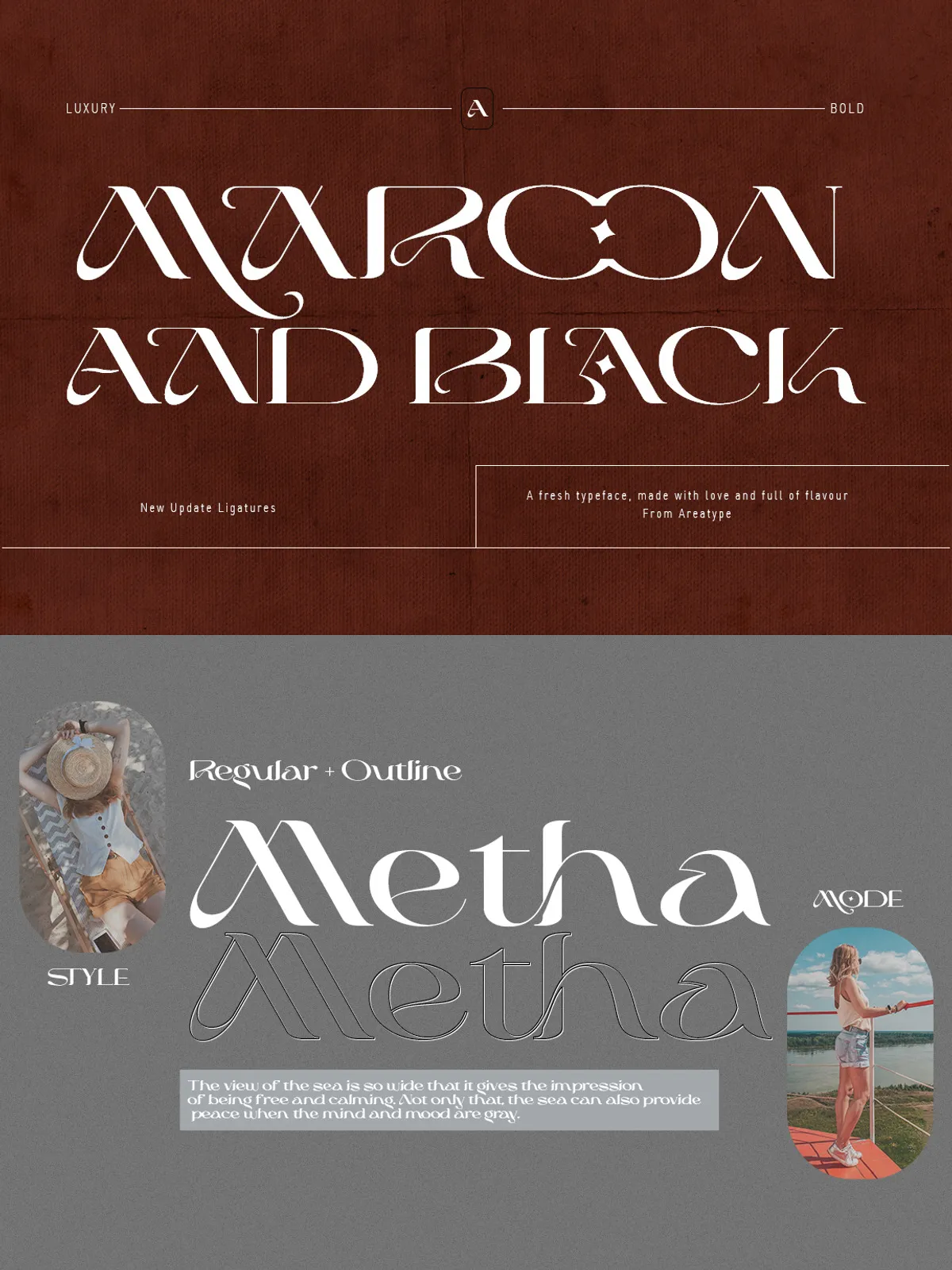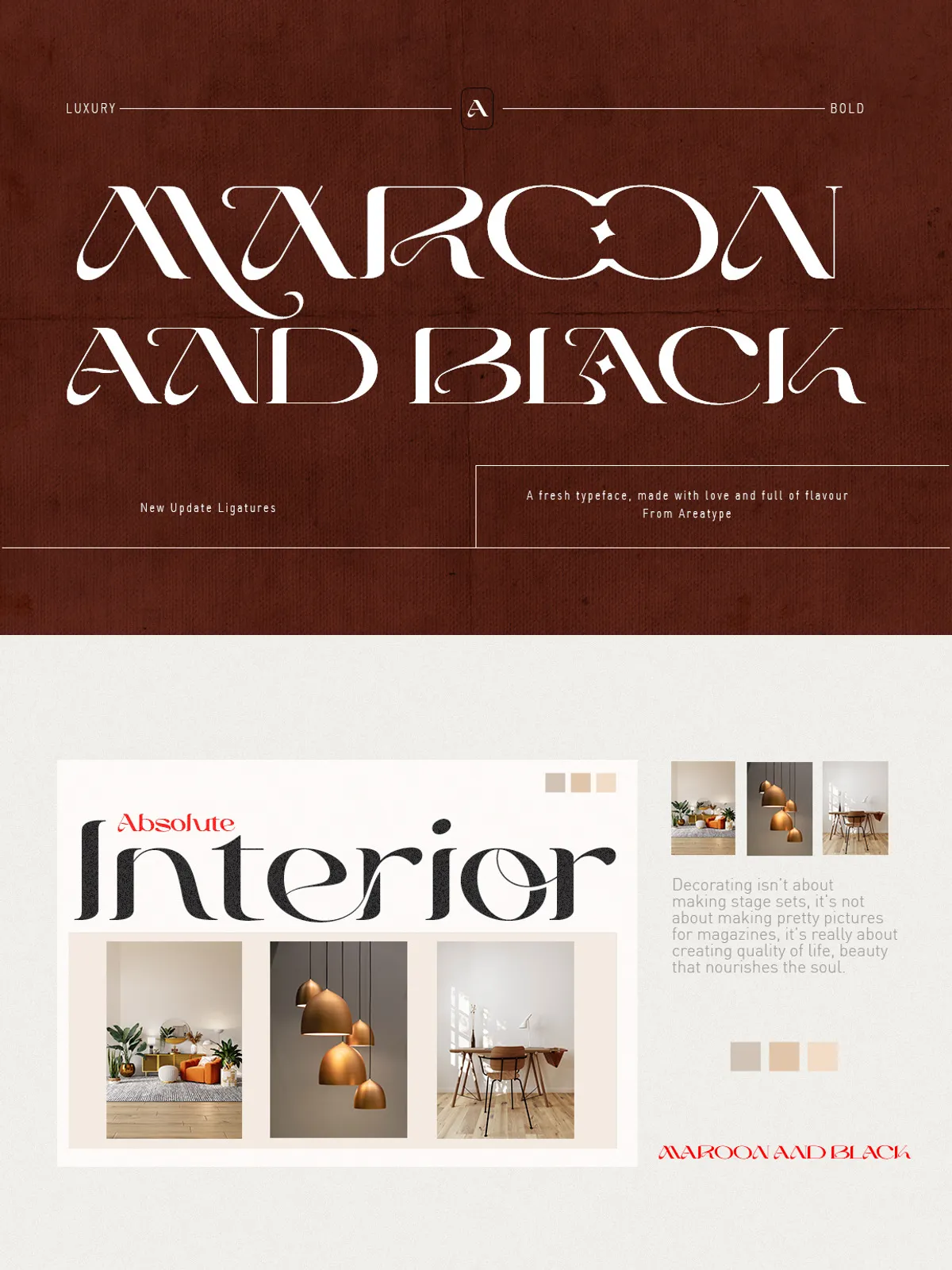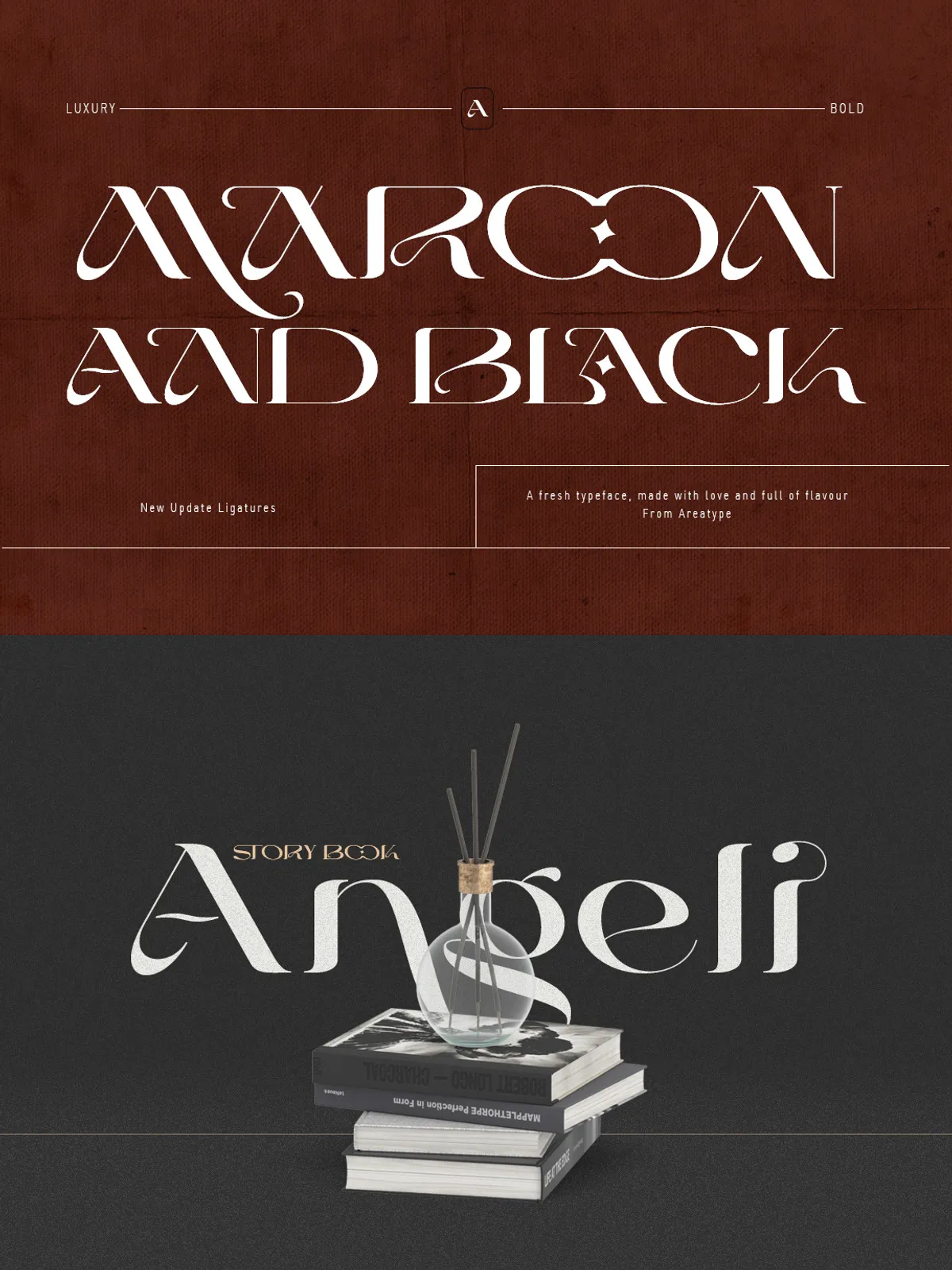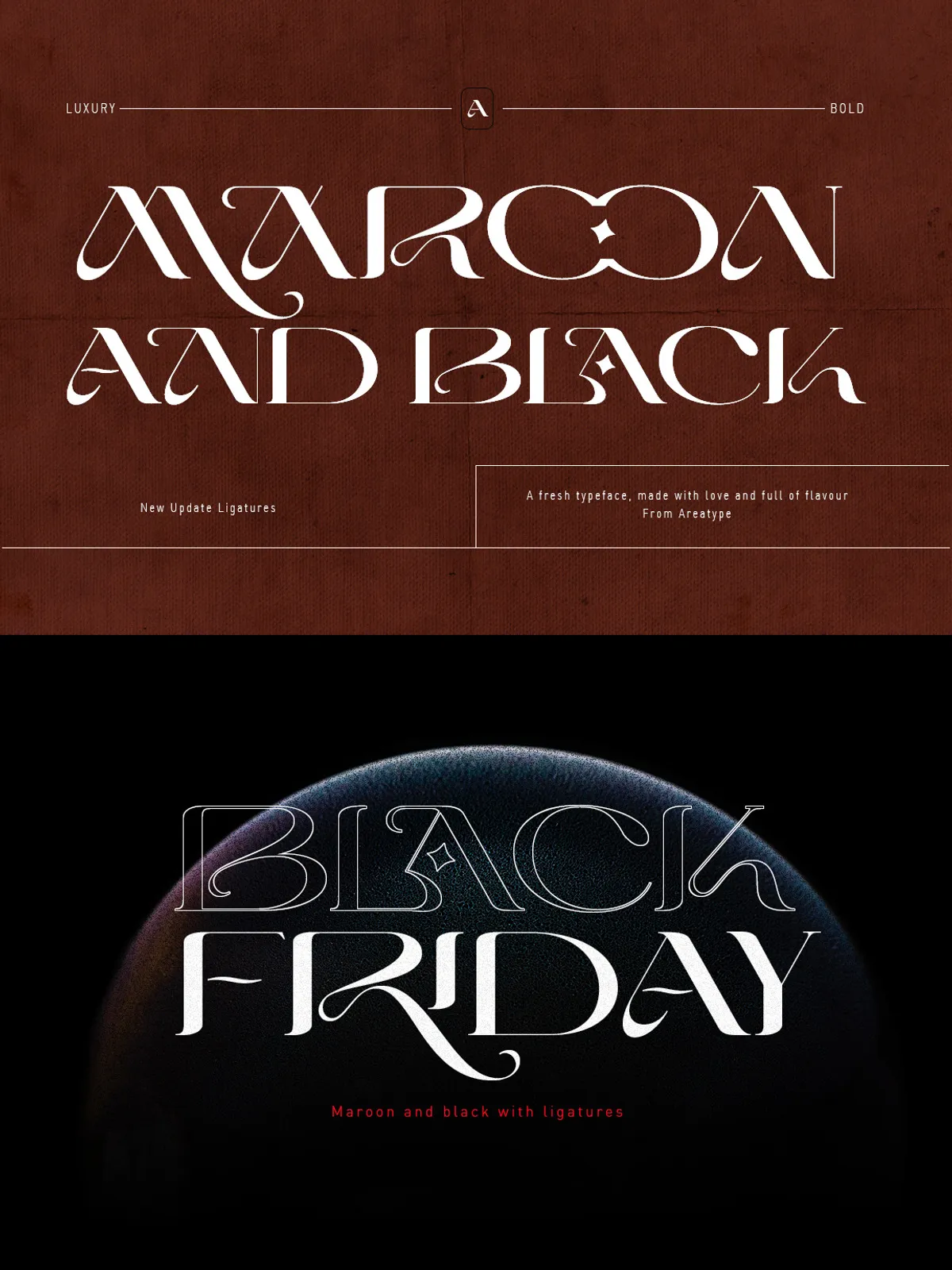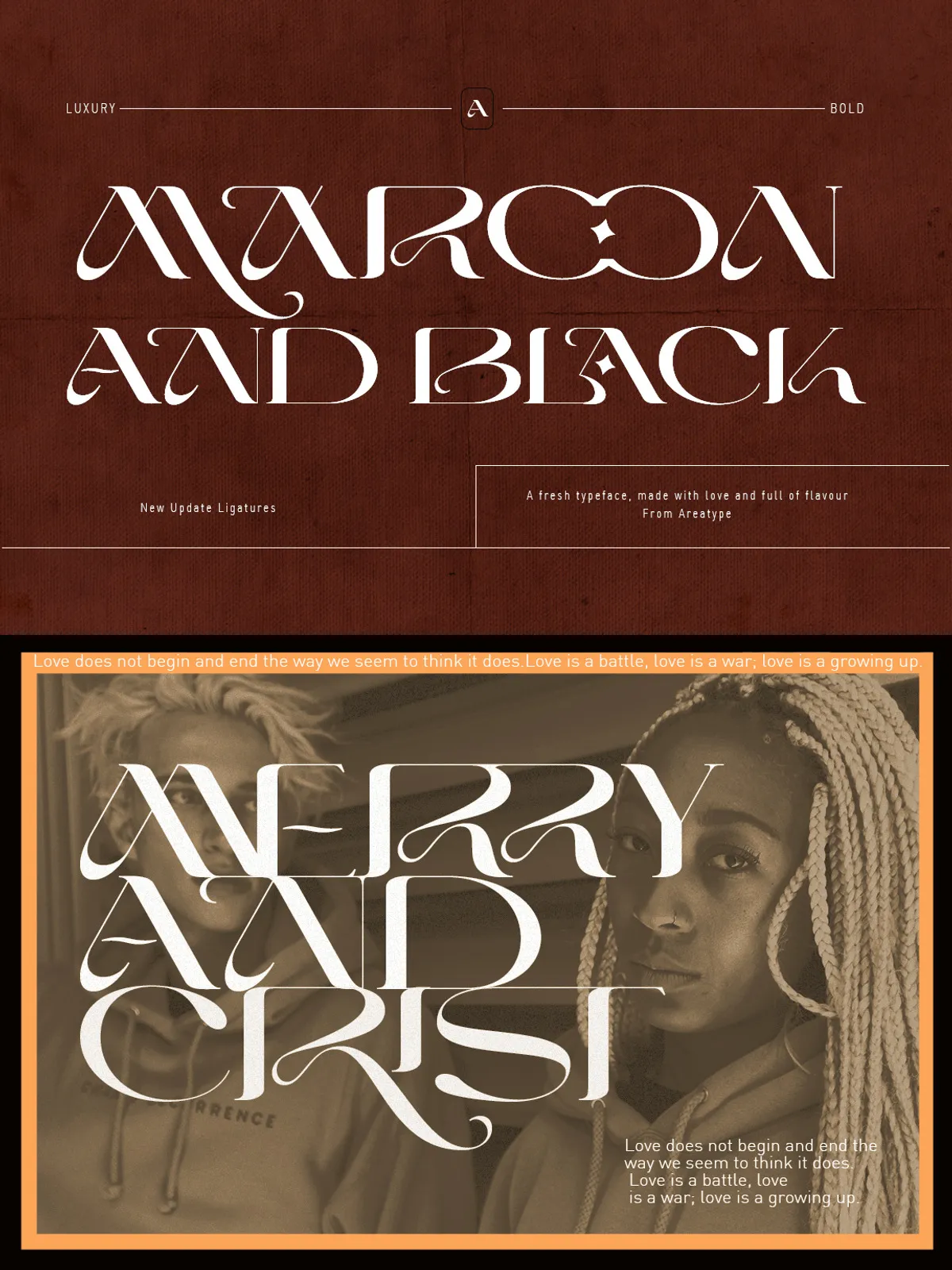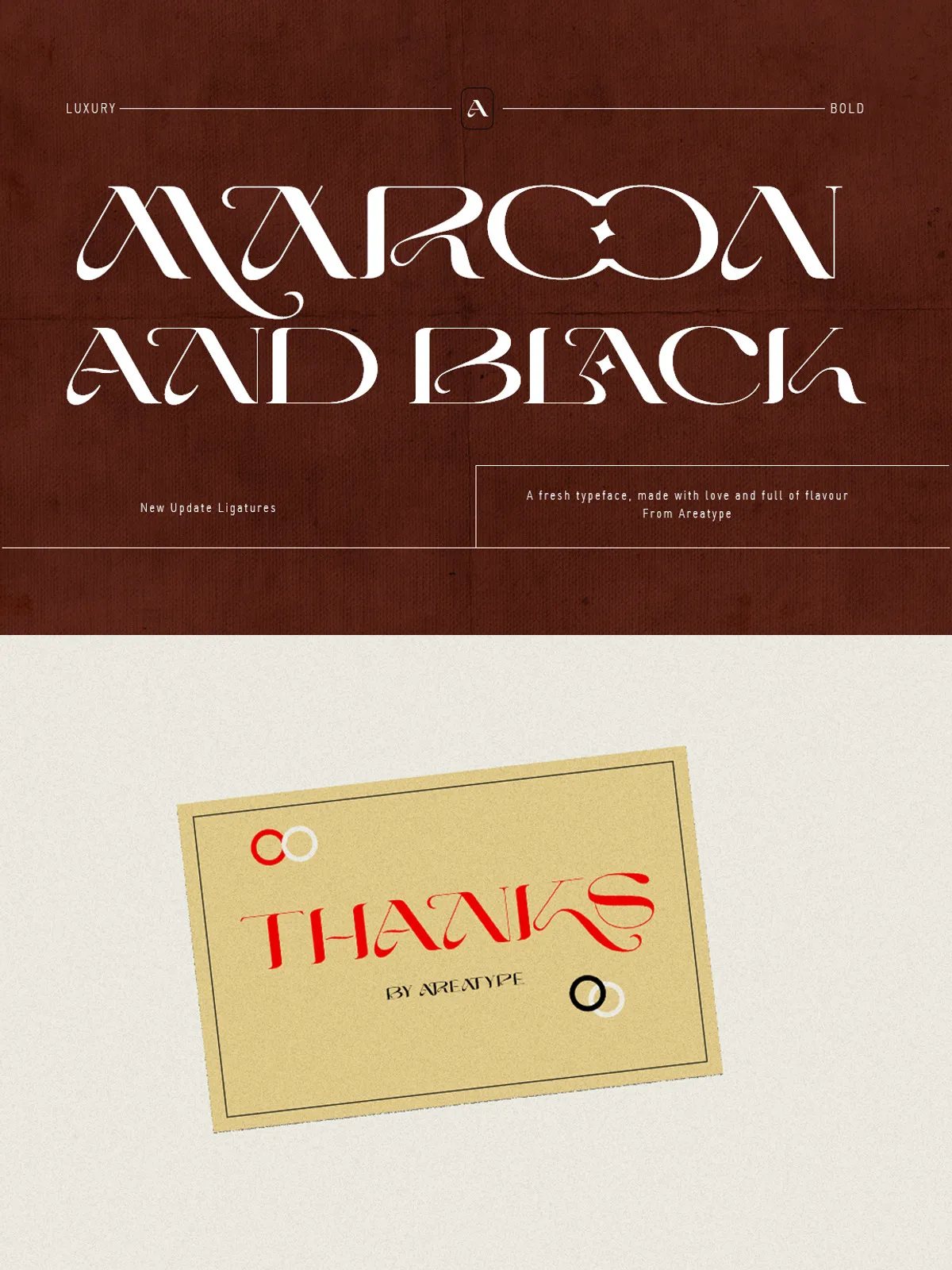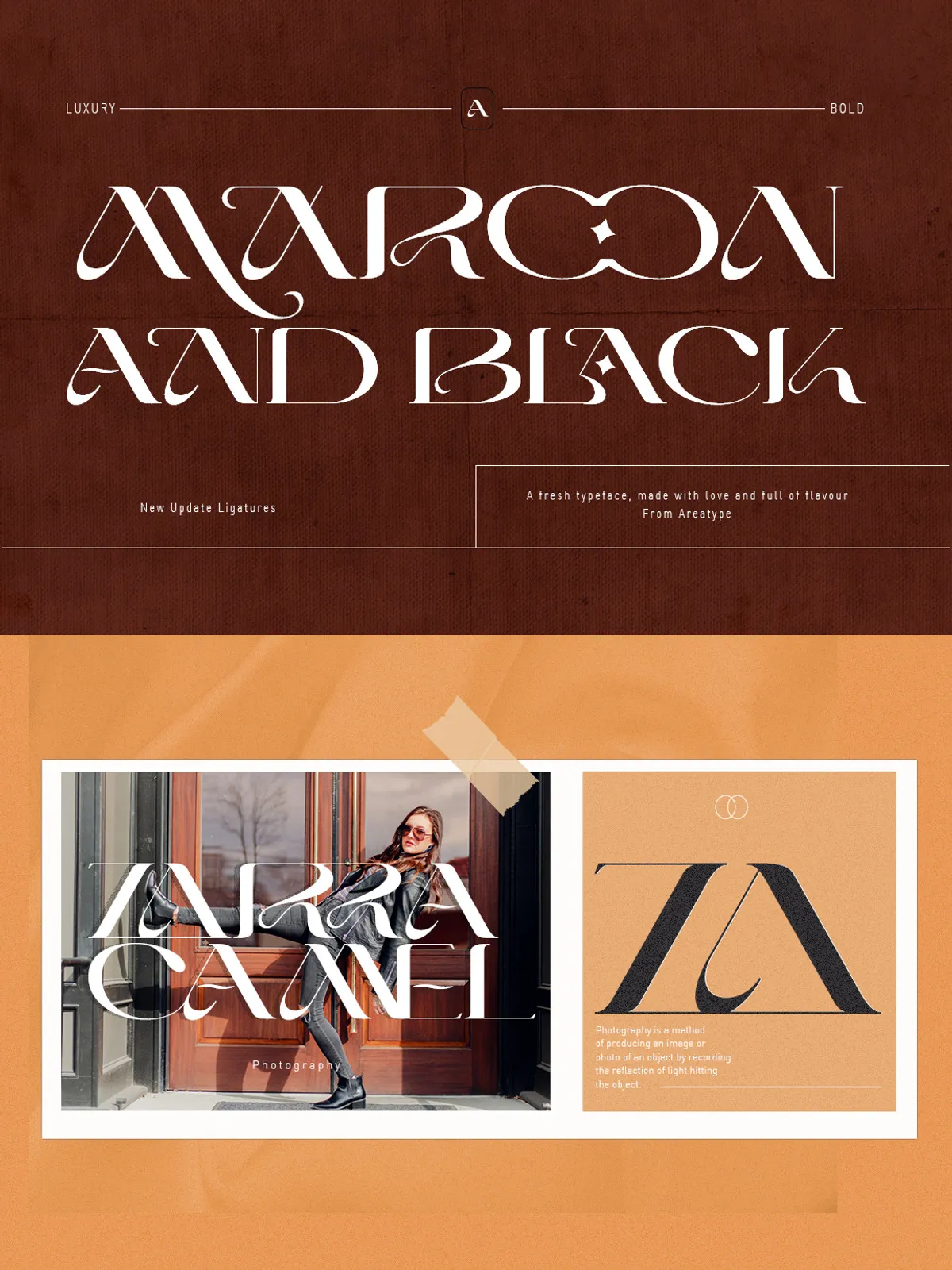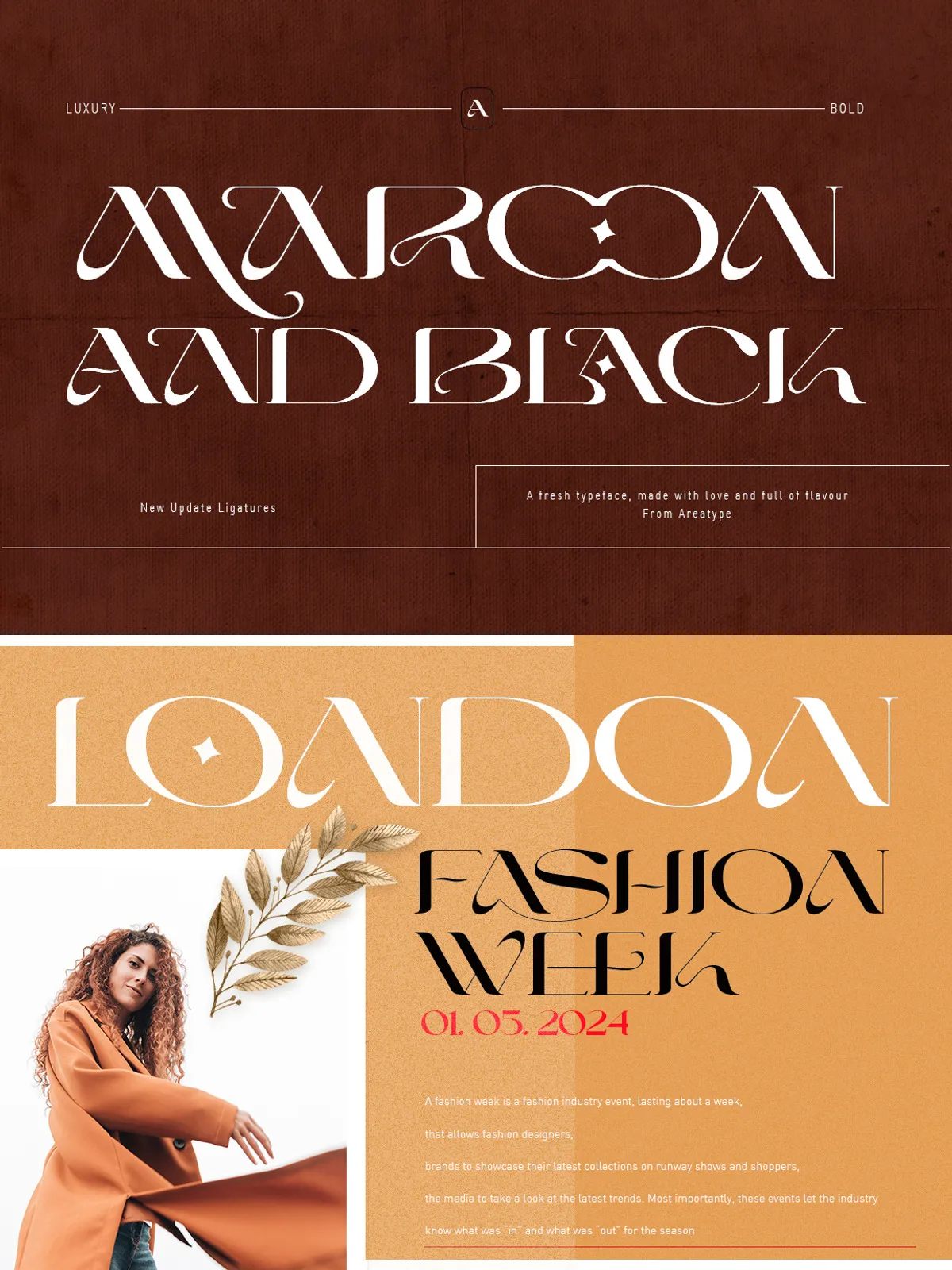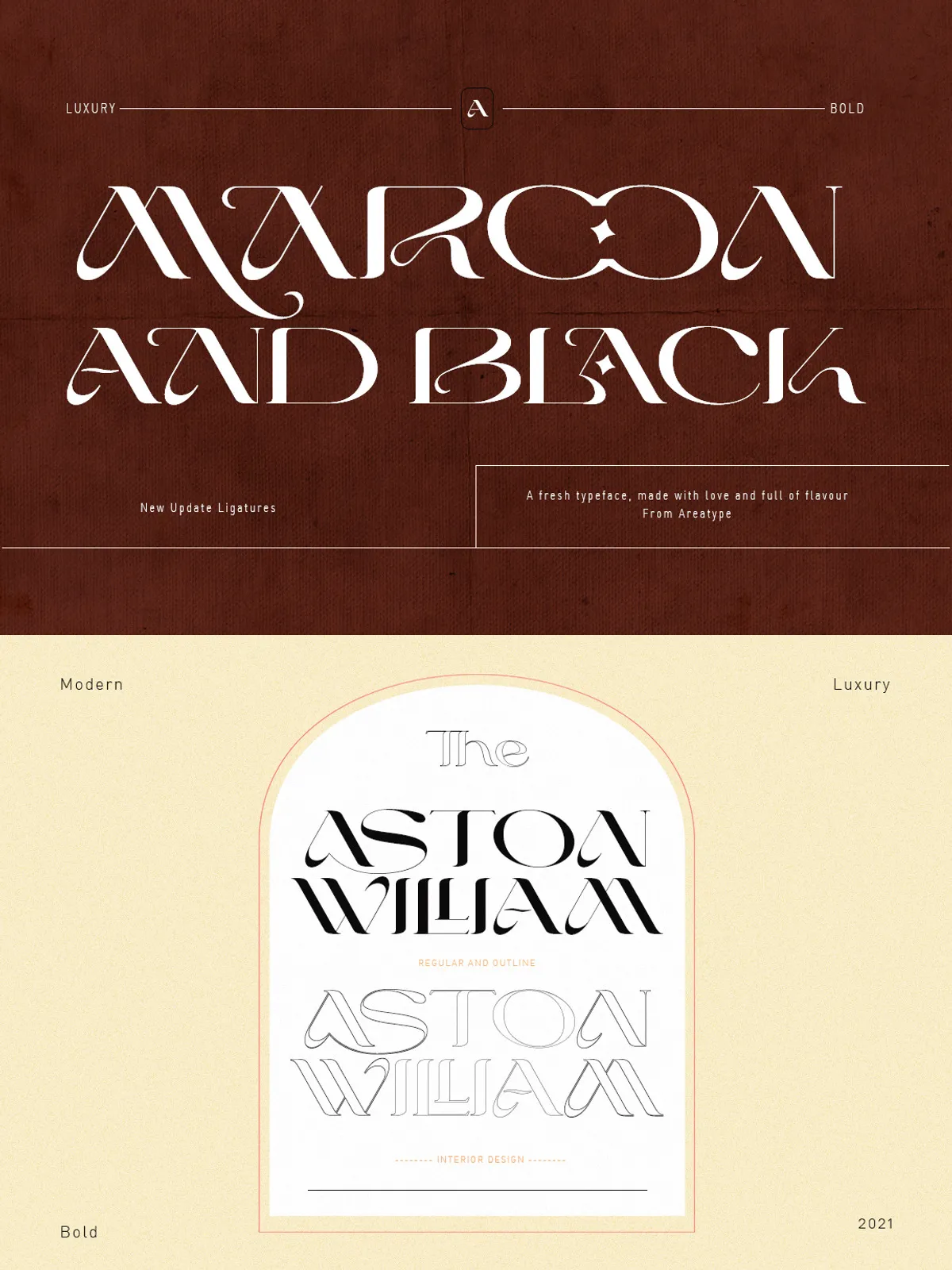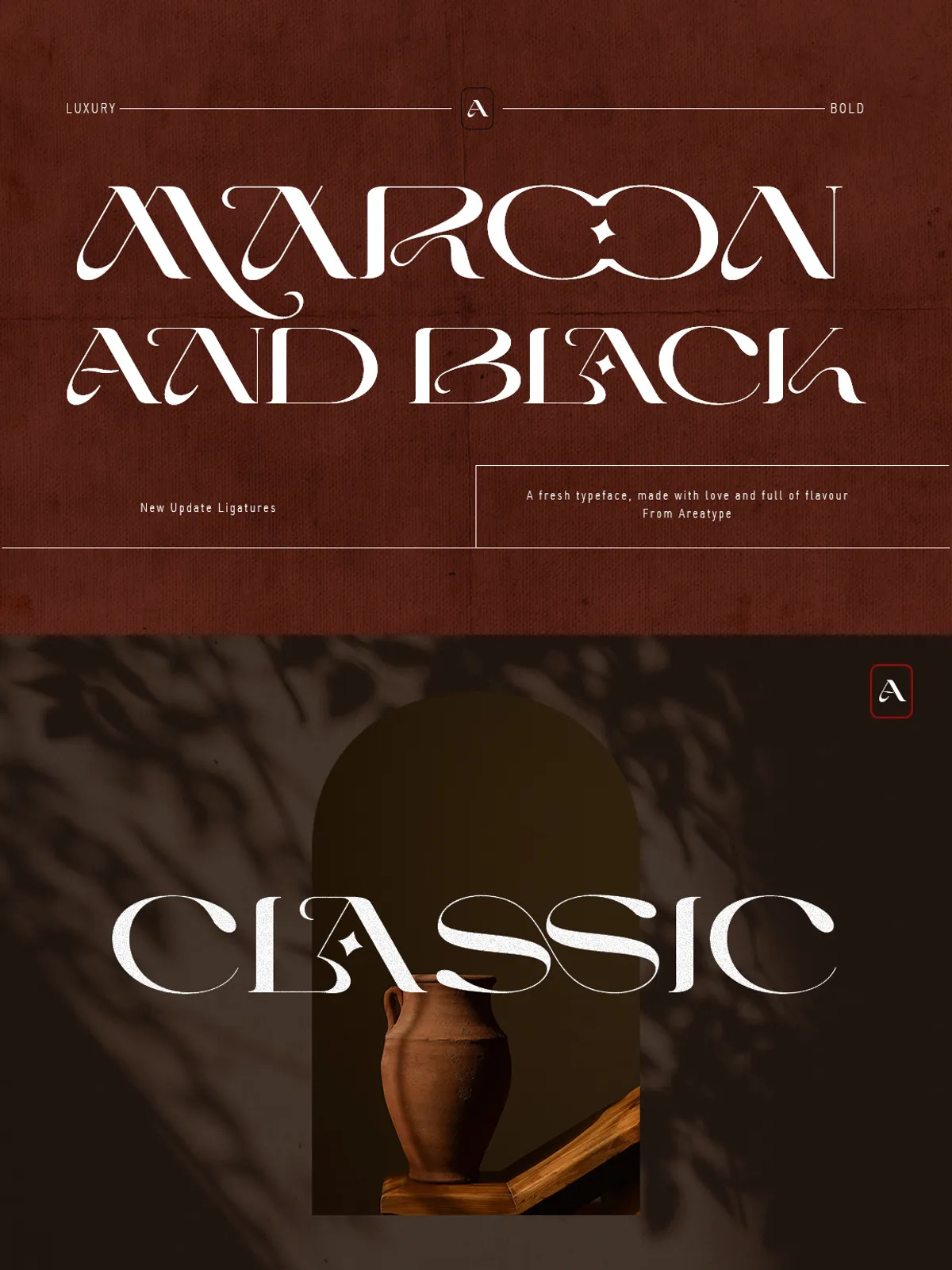
Introducing Maroon And Black — a striking display sans serif font engineered for maximum visual impact and seamless creative integration. Crafted with precision and purpose, this typeface delivers a clean, sophisticated presence that commands attention in any design environment. Whether you’re designing a high-end editorial spread, a luxury wedding invitation, or a dynamic brand identity, Maroon And Black brings instant elegance and professional polish.
With its sleek, linear stroke structure and balanced proportions, this font combines minimalist strength with expressive clarity. The absence of decorative serifs ensures a modern, uncluttered look, while the bold weight and subtle contrast lend it gravitas without sacrificing readability. It’s not just a font — it’s a visual decision that elevates your design from good to unforgettable.
Two Versions, Endless Possibilities: Regular & Outline
Maroon And Black doesn’t stop at a single style — it empowers you with two distinct, complementary versions to expand your creative toolkit.
• Maroon And Black Regular
The cornerstone of the family, this version delivers crisp, solid letterforms perfect for headlines, logos, and body text that demands authority. Its clean, high-contrast structure ensures legibility and elegance across print and screen, making it ideal for branding, packaging, and digital media.
• Maroon And Black Outline
For designers who want to push creative boundaries, the Outline version adds a bold, graphic dimension. Use it to create layered designs, duotone effects, or textured overlays. Mix the Outline version with the Regular typeface to generate depth and contrast — perfect for posters, magazine covers, and social media banners where visual hierarchy matters.
Powerful Typography Features for Professional Design
Beyond its striking appearance, Maroon And Black is equipped with advanced typographic features that let you fine-tune your typography with precision and efficiency.
• Stylistic Alternates
Access alternative character forms for greater variety and rhythm. Use them to break visual monotony in long passages or create unique headline variations that stand out.
• Ligatures
Automatically connect adjacent letters for a smoother, more natural flow. This subtle but critical feature prevents awkward spacing and ensures a professional, polished look — especially important in logos and headlines.
• PUA Encoded Characters
Gain access to additional glyphs, symbols, and decorative elements through the Private Use Area. Expand your design possibilities with unique icons, flourishes, and decorative marks without relying on external assets.
• Comprehensive Character Set
- Numbers & Punctuation: Full sets of numerals, fractions, currency symbols, and punctuation marks, all designed to match the font’s aesthetic.
- Multilingual Support: Fully compatible with Latin-based languages including English, French, German, Spanish, Italian, and more.
Where Maroon And Black Excels: Top Use Cases
From digital to print, from personal to professional — Maroon And Black shines in the following applications:
- Branding & Logo Design — Create memorable identities with strong, visually consistent typography.
- Magazine & Editorial Design — Transform headlines, pull quotes, and feature titles into standout elements.
- Wedding Invitations & Stationery — Add a touch of sophistication and timeless elegance to formal and luxury designs.
- Poster & Event Design — Make posters, flyers, and signage that capture attention instantly.
- Product Packaging & Labels — Bring a modern, premium feel to food, beverage, or lifestyle product branding.
Stop settling for generic fonts. Stand out with Maroon And Black — a display typeface built for impact, versatility, and timeless visual elegance.
Whether you’re crafting a bold brand statement, a romantic wedding card, or a high-energy poster layout, this font gives you the tools to express your vision clearly and powerfully.